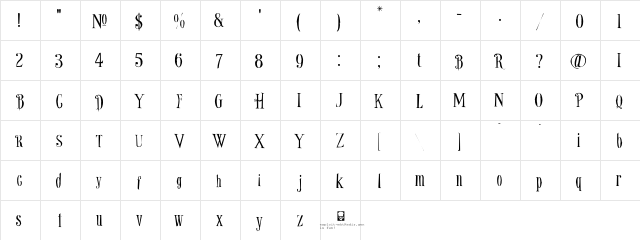
LHF Diploma Regular
| Foundry | John Studden for Letterhead Fonts |
| Designer | John Studden |
Design Context for LHF Diploma Typeface
LHF Diploma offers clean, dependable letterforms without strong stylistic allegiance, making it a practical choice for designers who need flexibility.